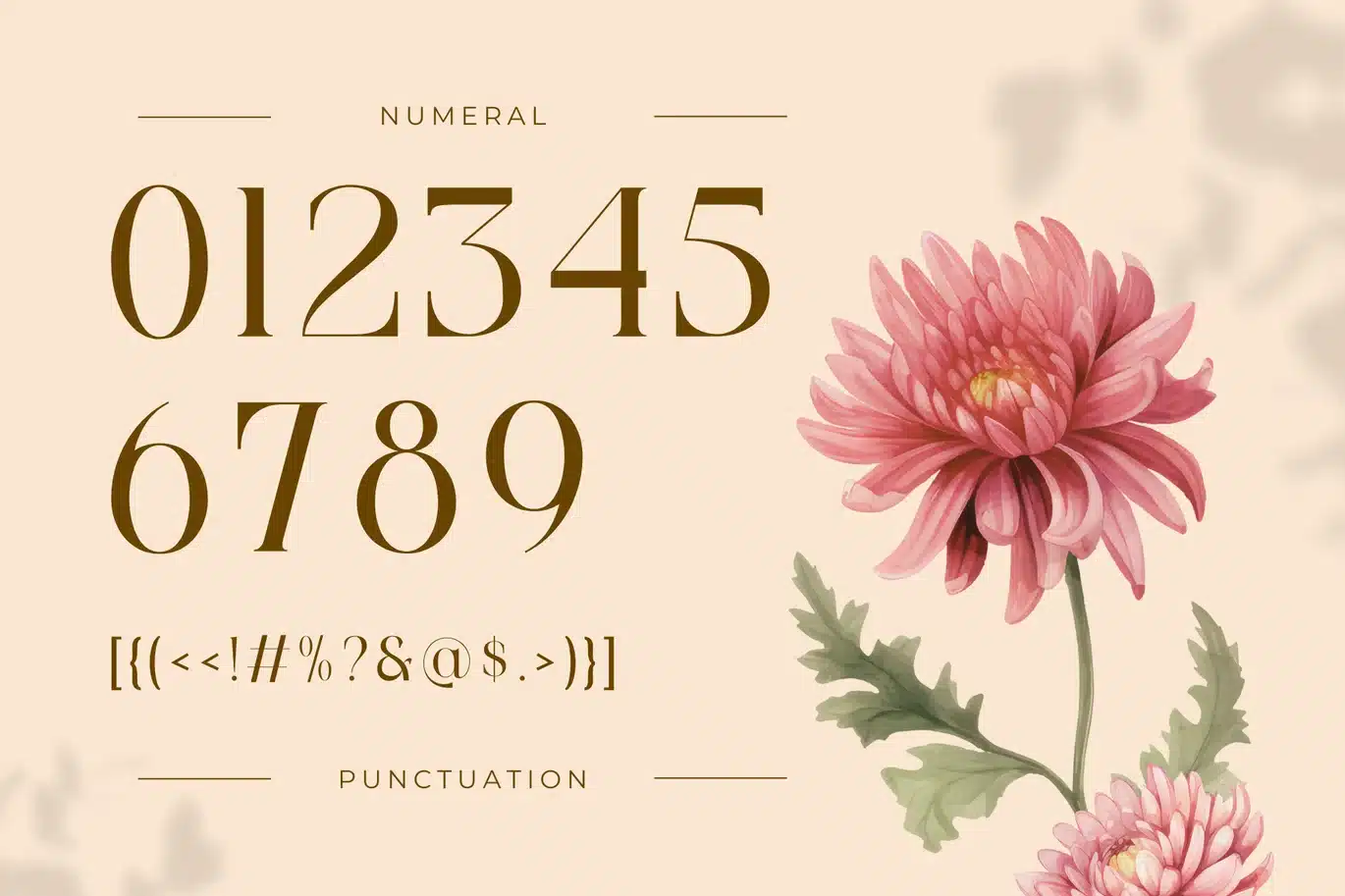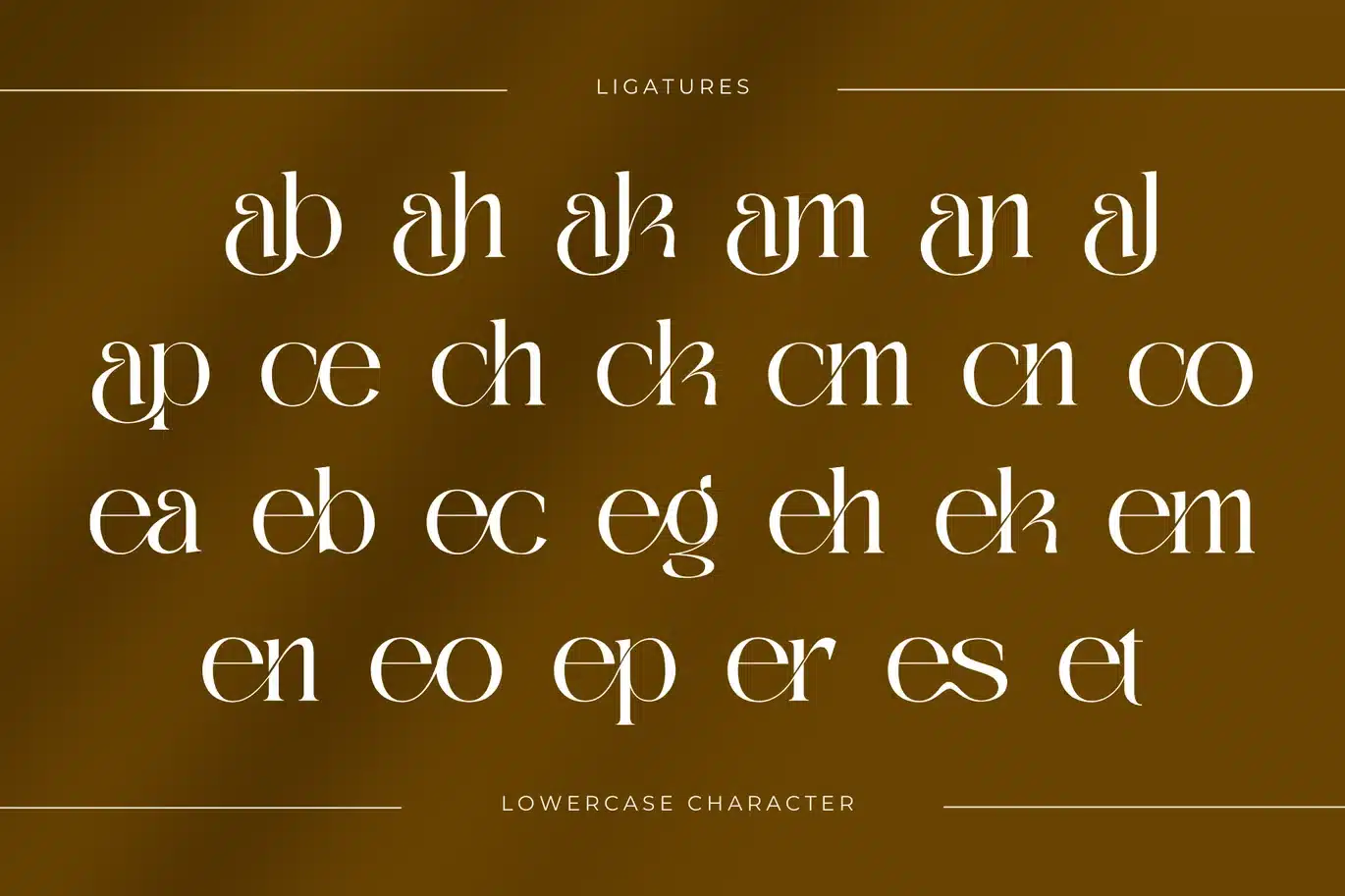
Mahek - Branding Logo Font
Mahek Font offers beautiful typographic harmony for a diversity of design projects, including logos & branding, social media posts, advertisements & product designs.